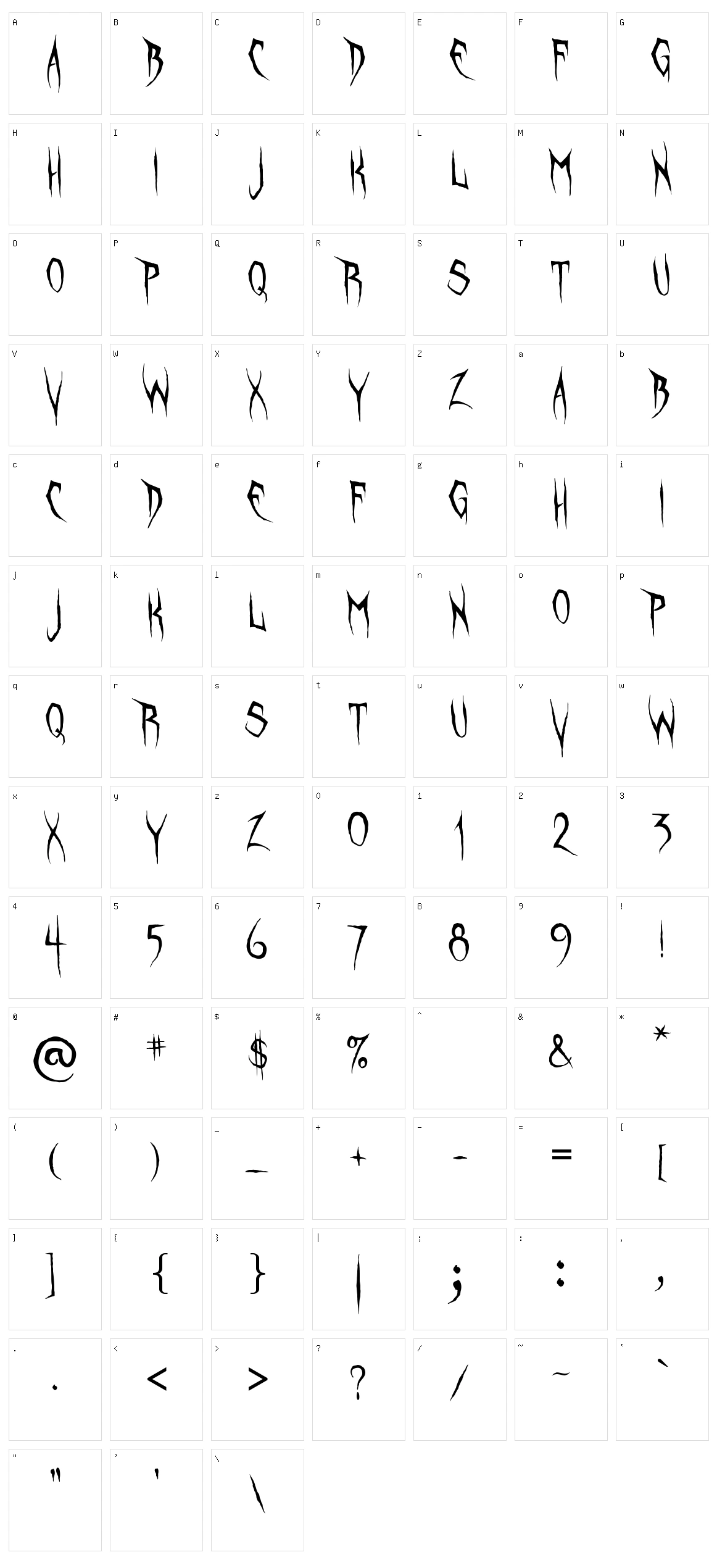
Unquiet Spirits Font by Chad Savage
Created 2010, hand-lettered as a more controlled version of Ghastly Panic.
This font is intended for specialty and graphic uses. It will look just awful if used in a paragraph format.